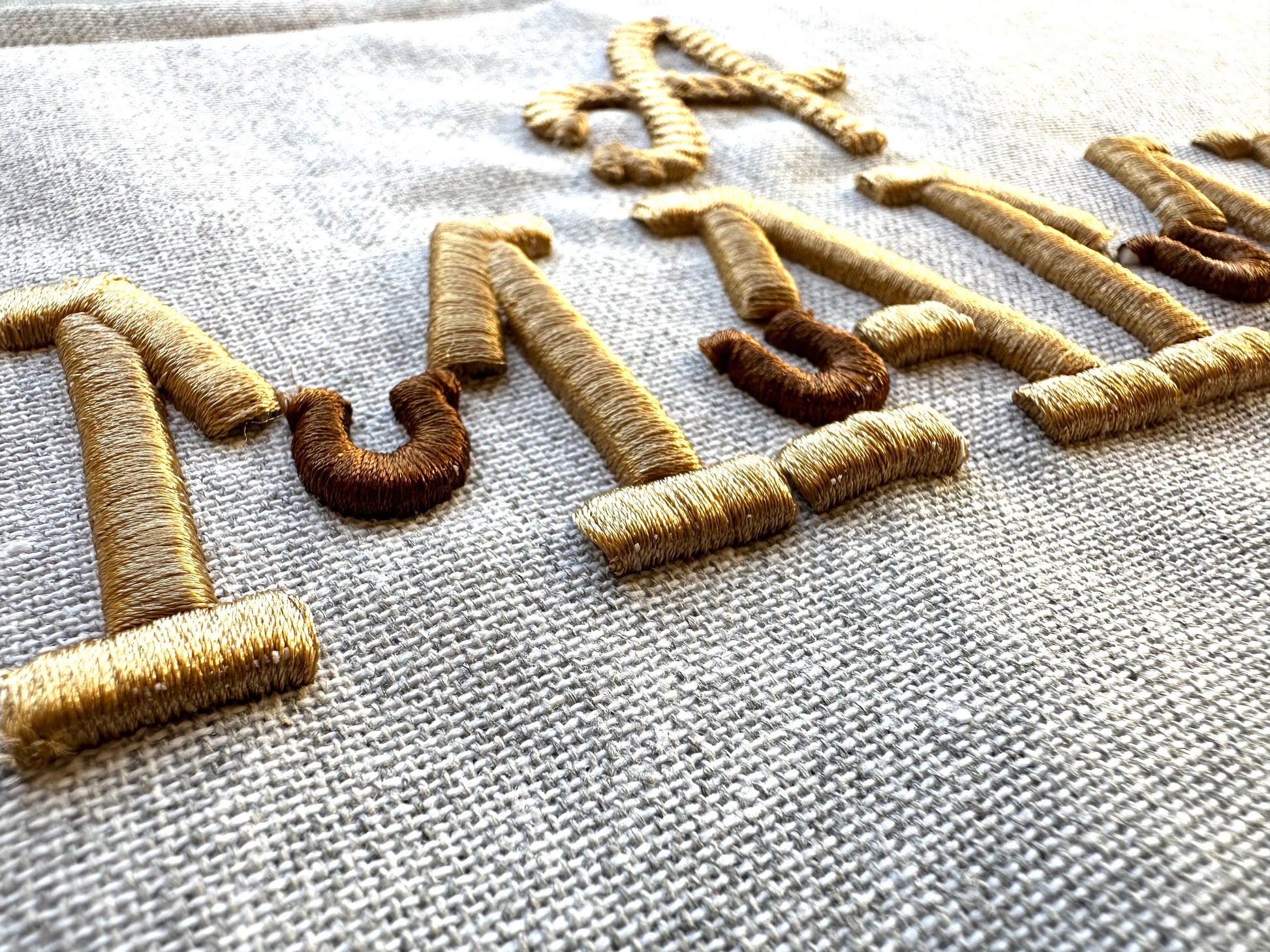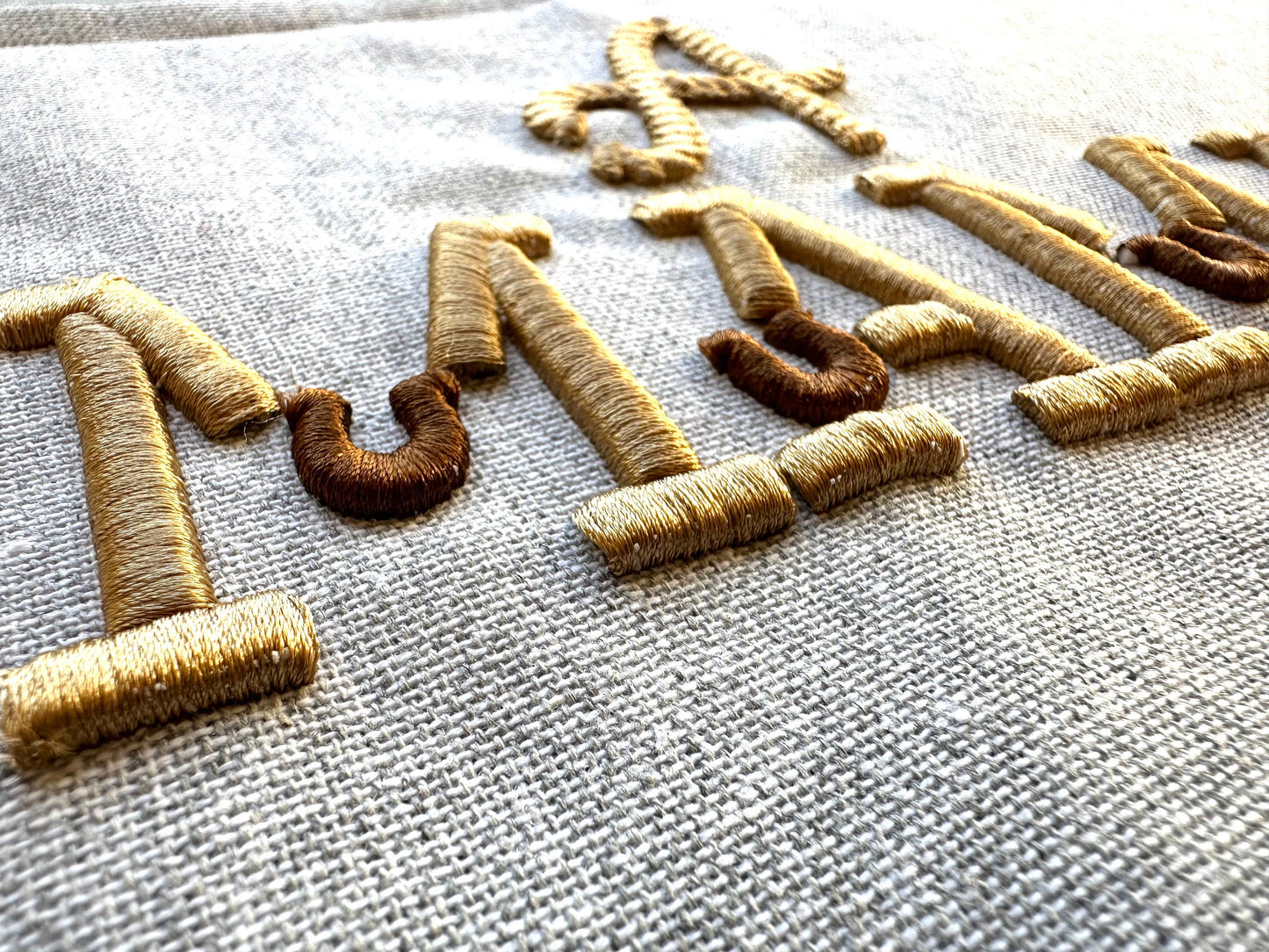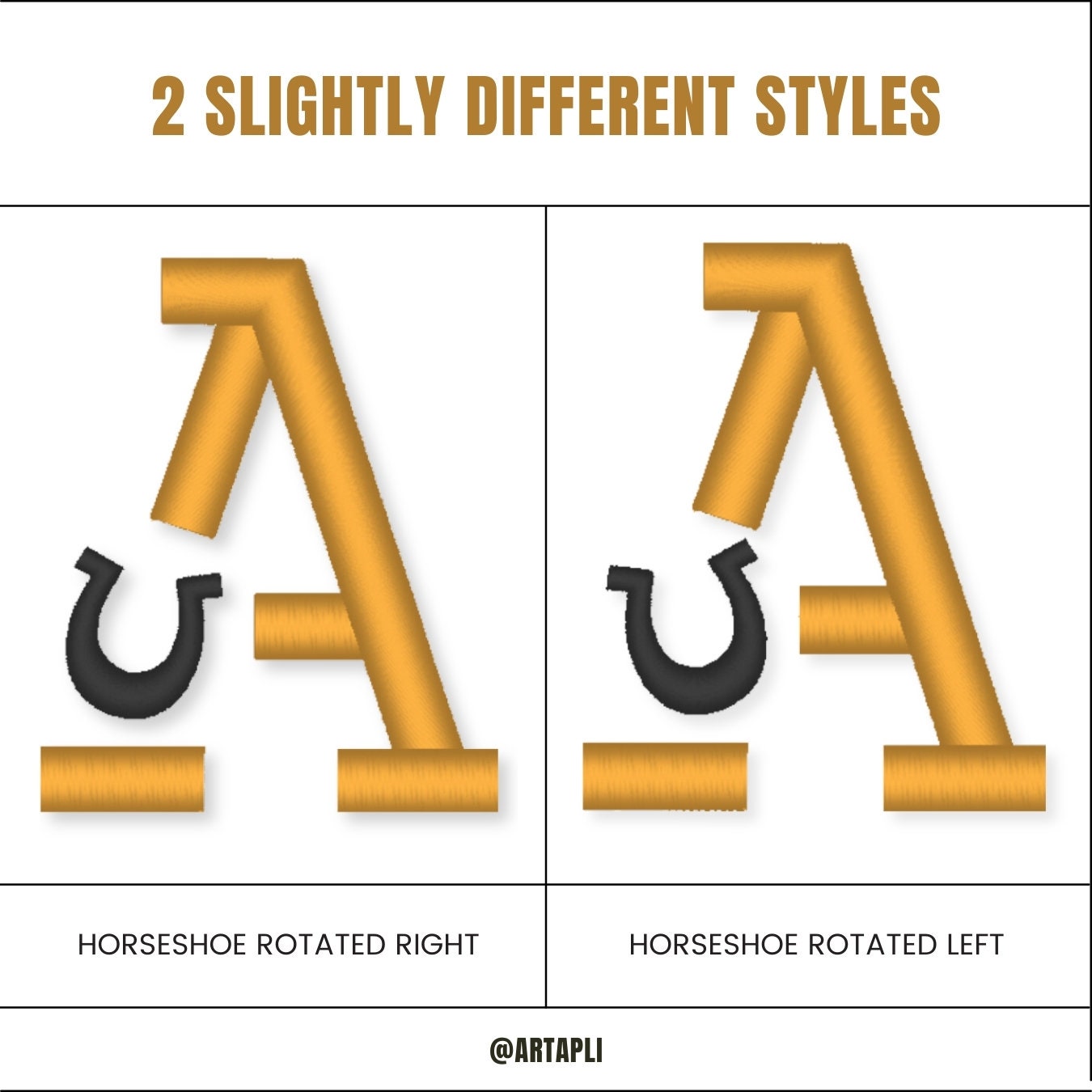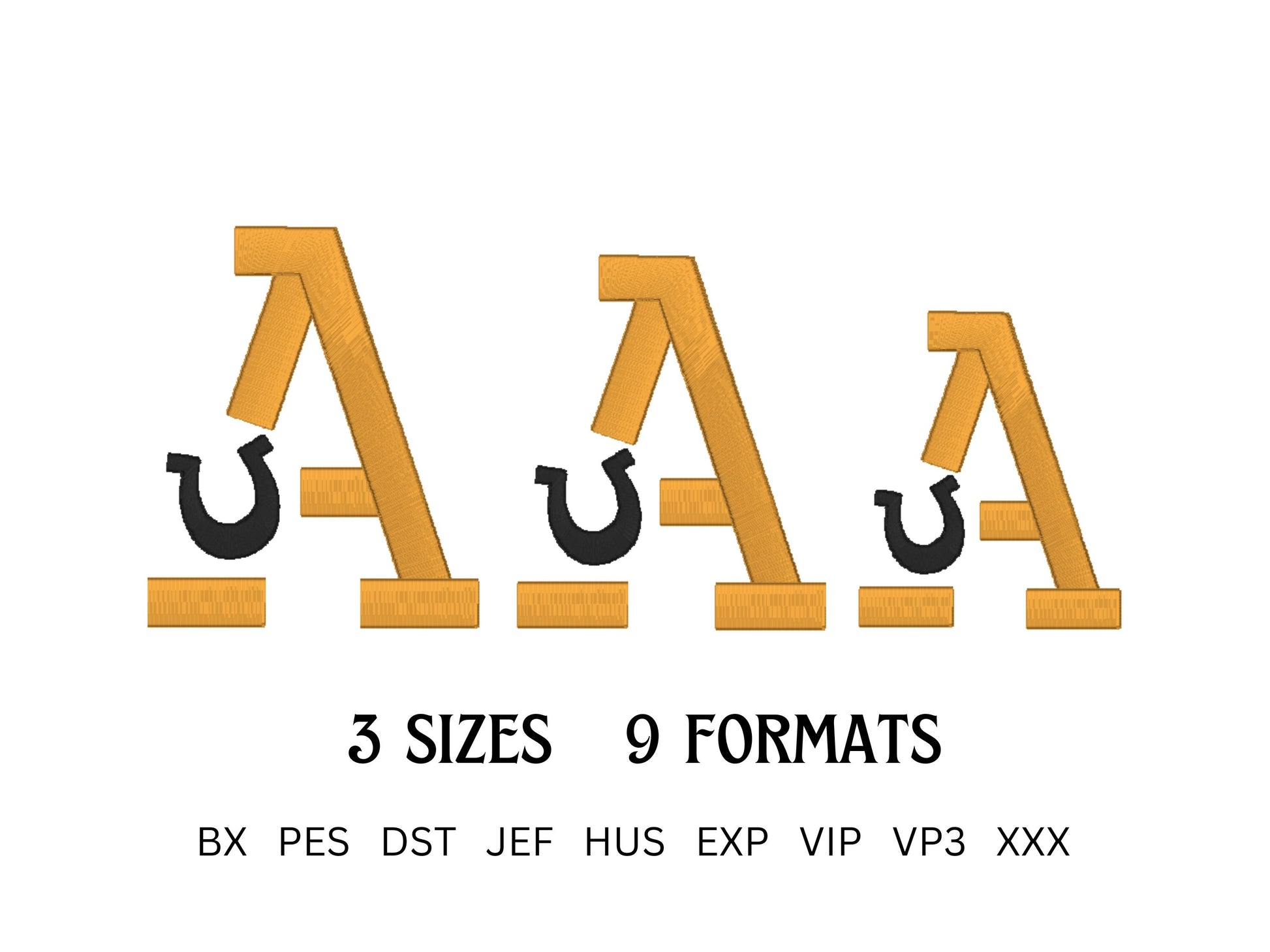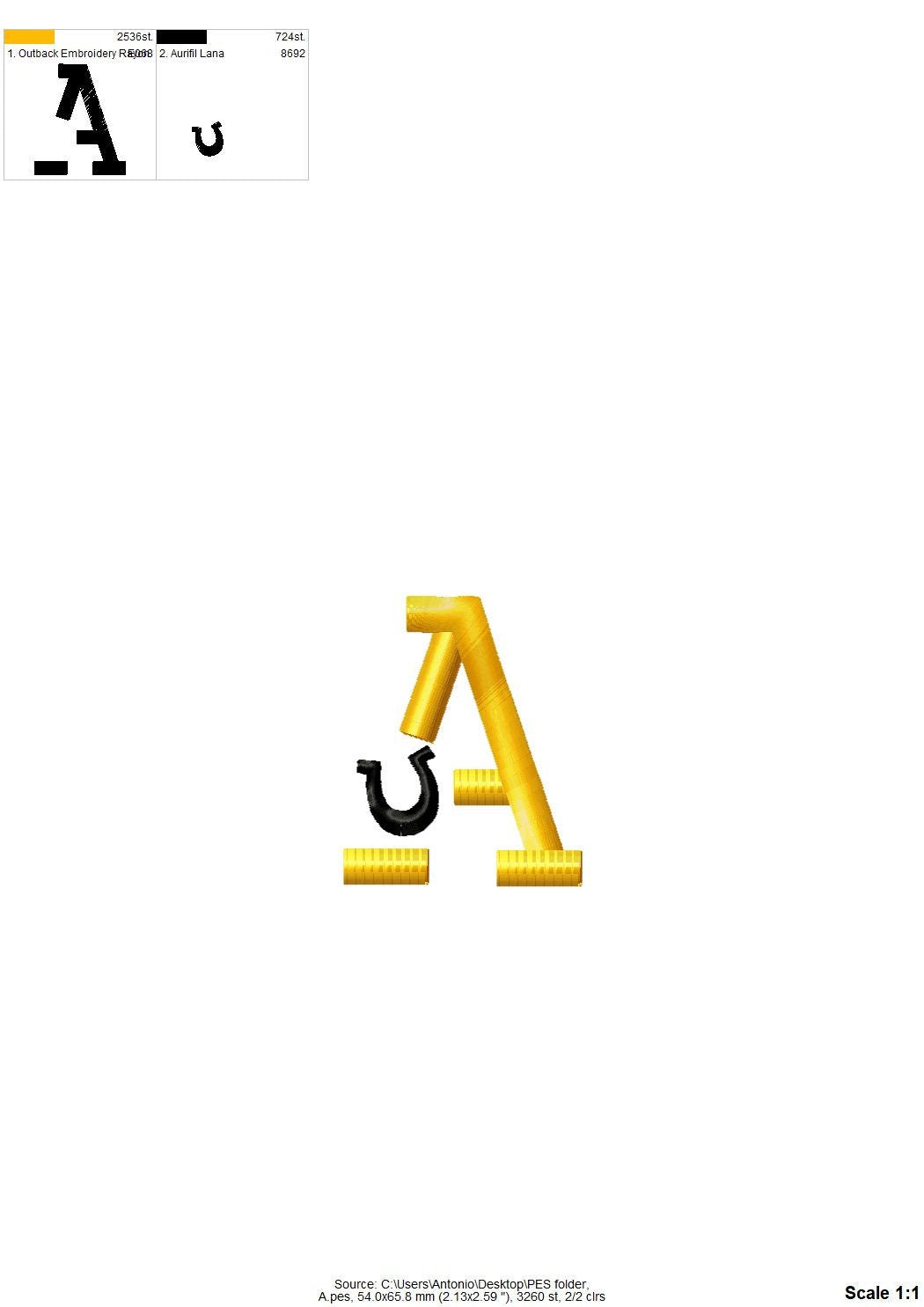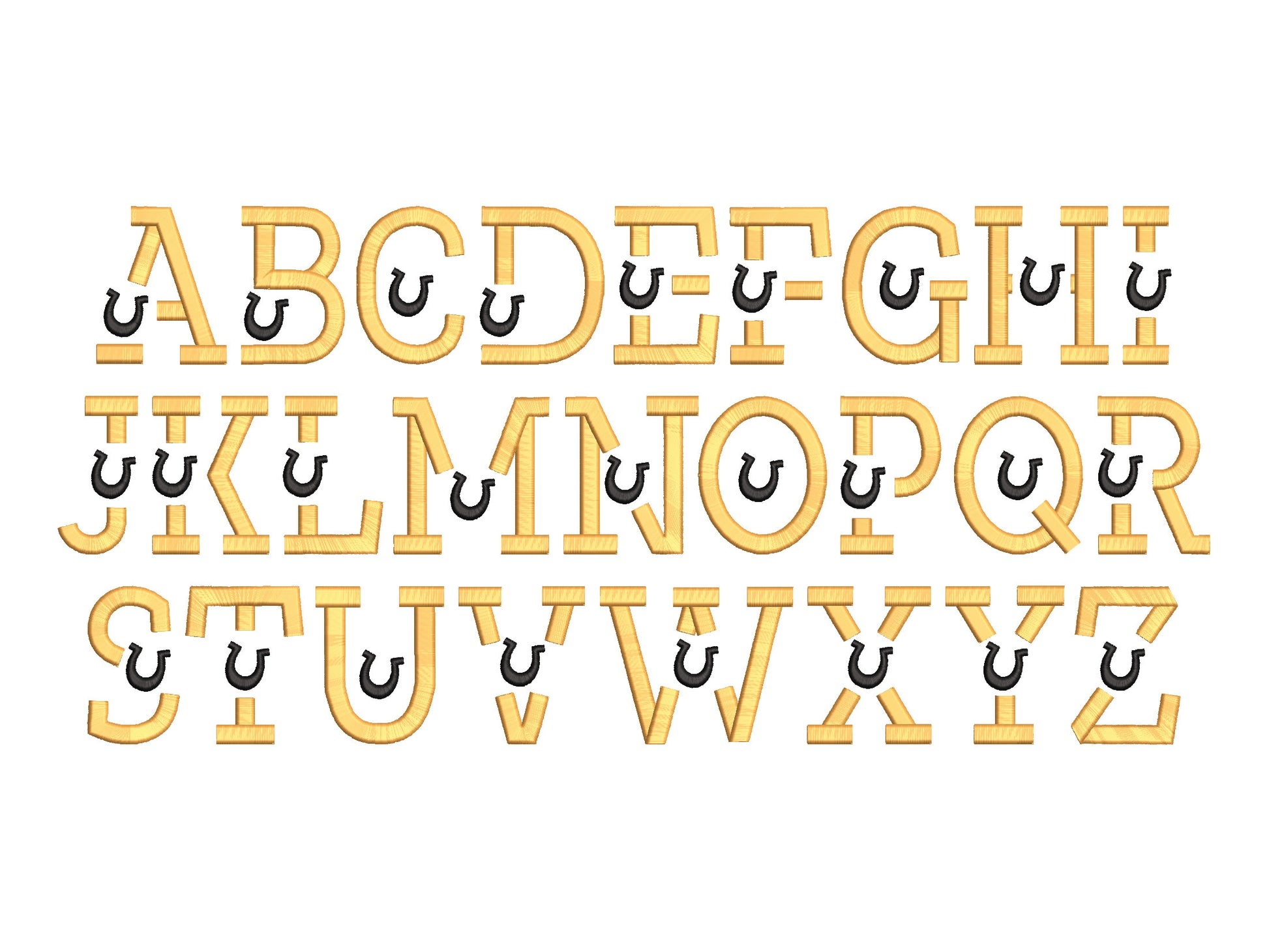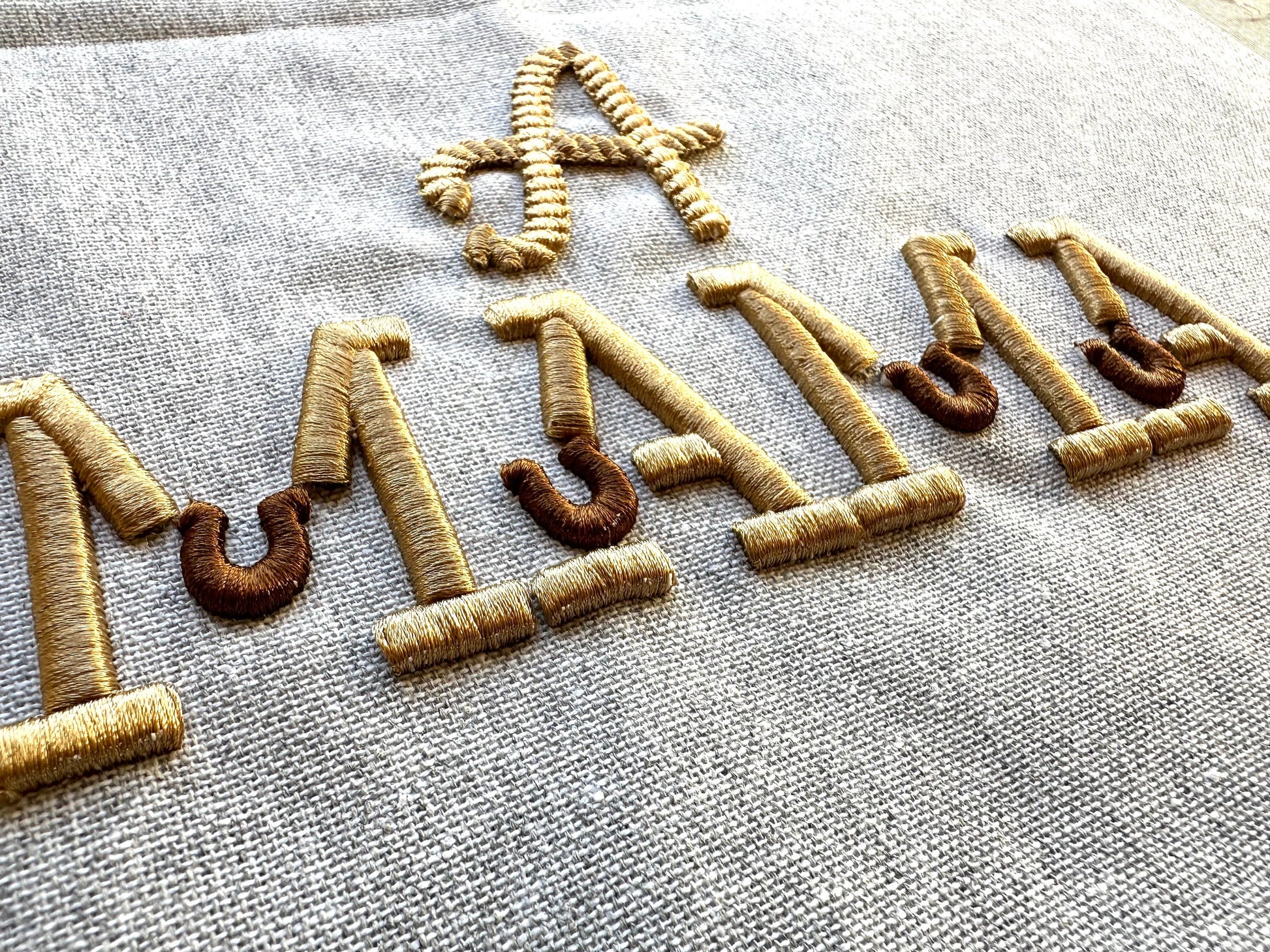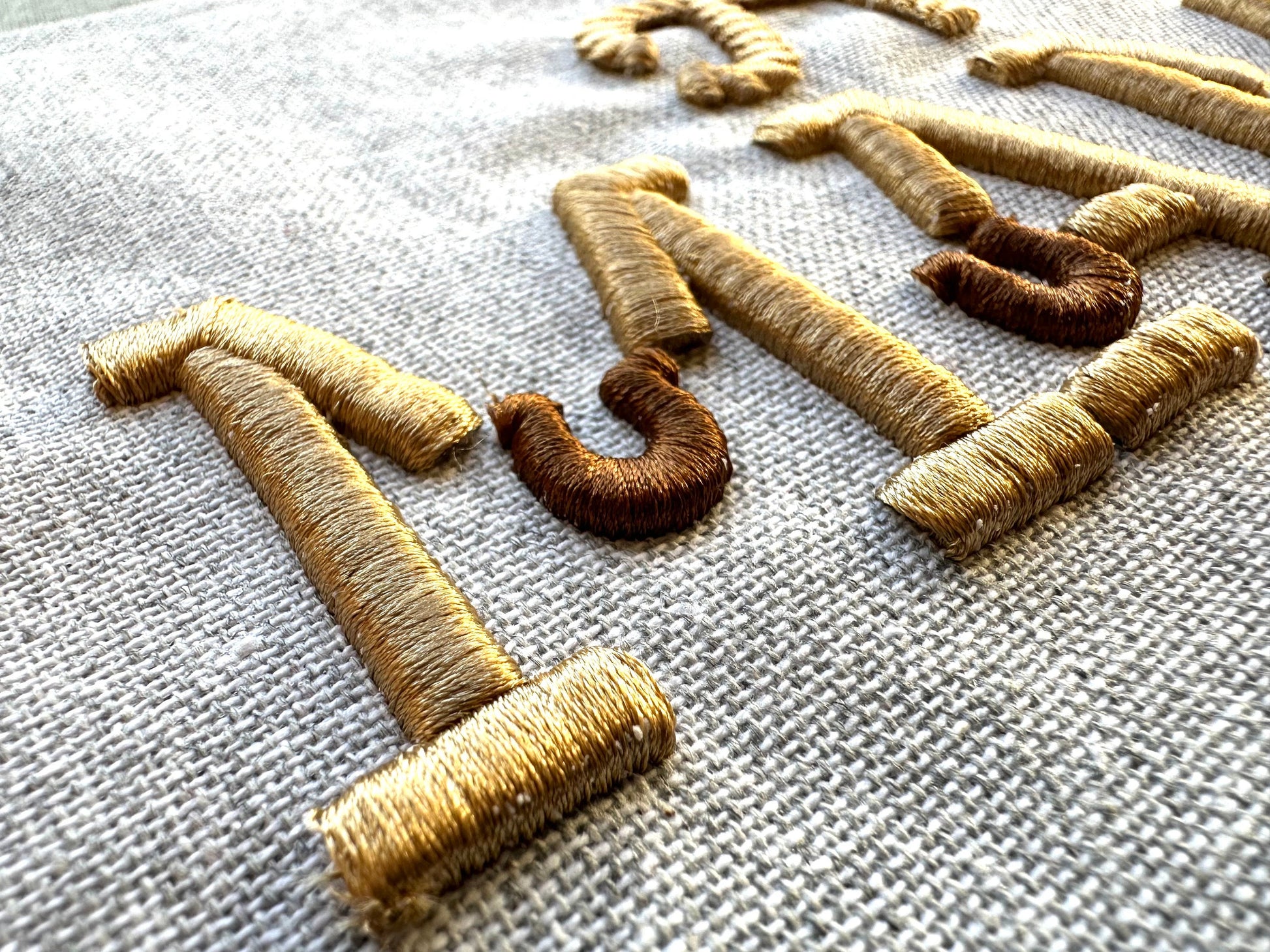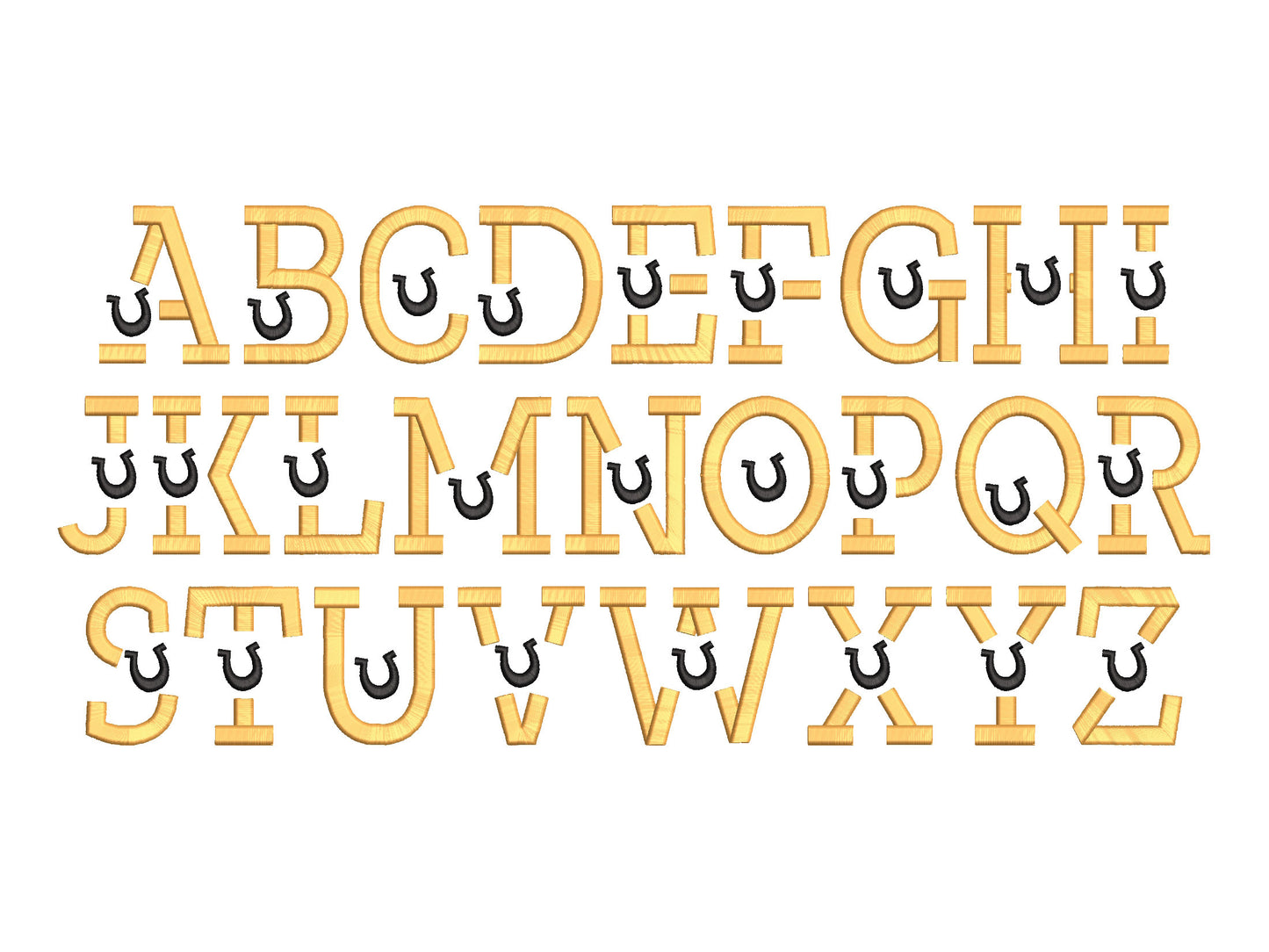
Puffy Puff Foam Horseshoe Font
Or click to open the linkA 3D puff font with a horseshoe on each letter, stitched over puffy foam for a raised look. Great for cowboy hats, caps, shirts and western gifts.
Two fonts: one with the horseshoe leaning left and one leaning right. Each has uppercase letters A to Z and numbers 0 to 9 in 2, 2.5 and 3 inches. You need 3 mm puffy foam.
- 3D puff horseshoe font, leaning left and right
- Uppercase A-Z and numbers 0-9